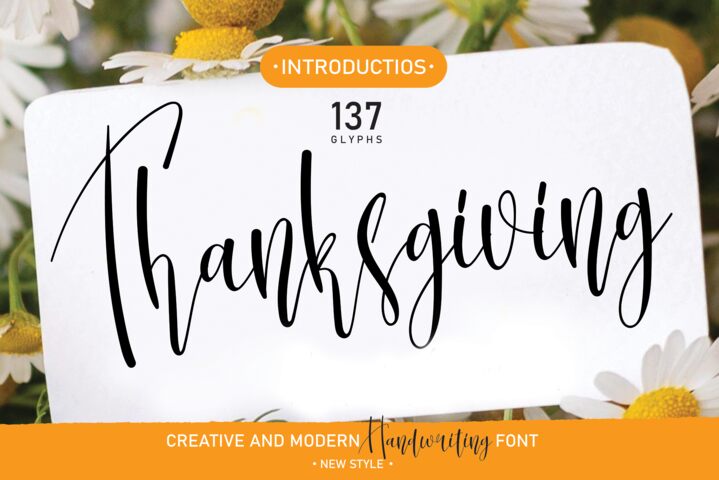
Thanksgiving
Thanksgiving, by scratchones, is a light and extra-condensed handwritten font perfect for adding that cozy, personal touch to any project. Use it to create beautiful greeting cards, signs, logos or even scrapbook layouts - the possibilities are endless!
the latest style letters are perfect for wall displays, wedding invitations, social media post logos,
advertisements, product packaging, product designs, labels, photography, watermarks, invitations, stationery,
and any project that requires taste handwriting.